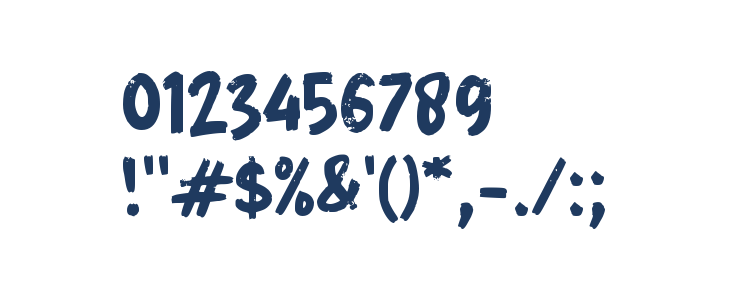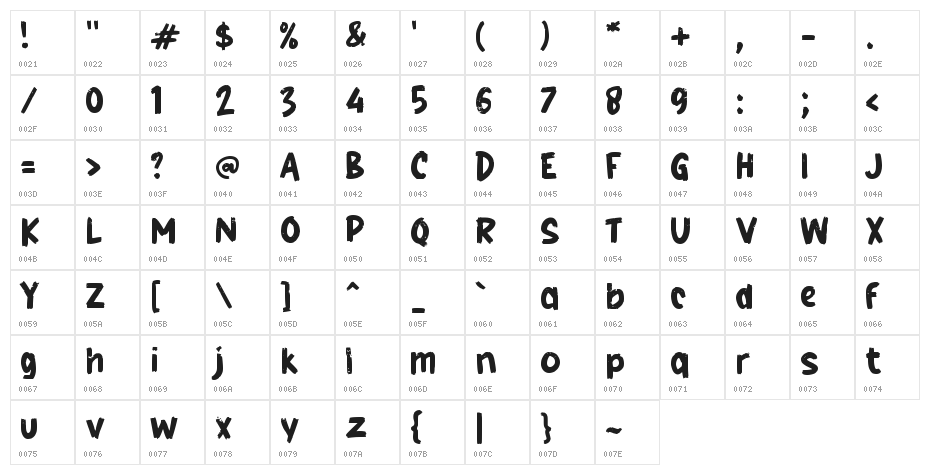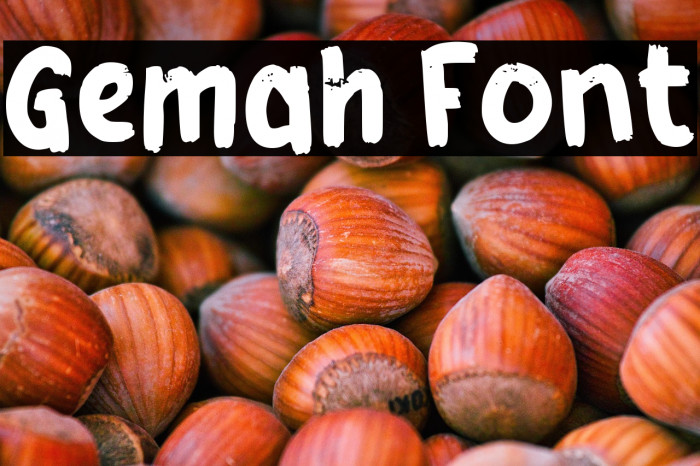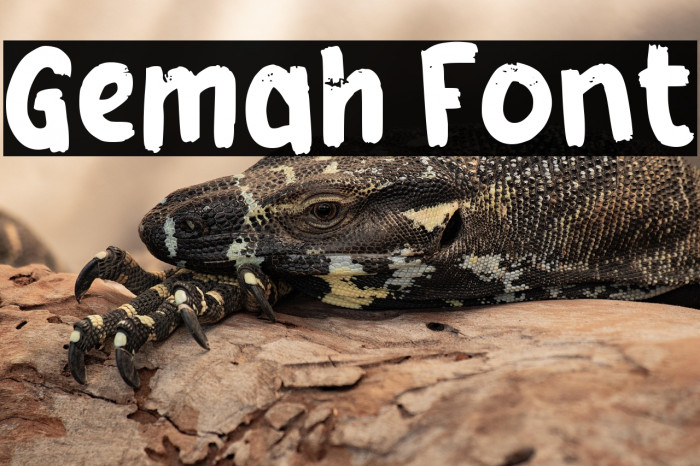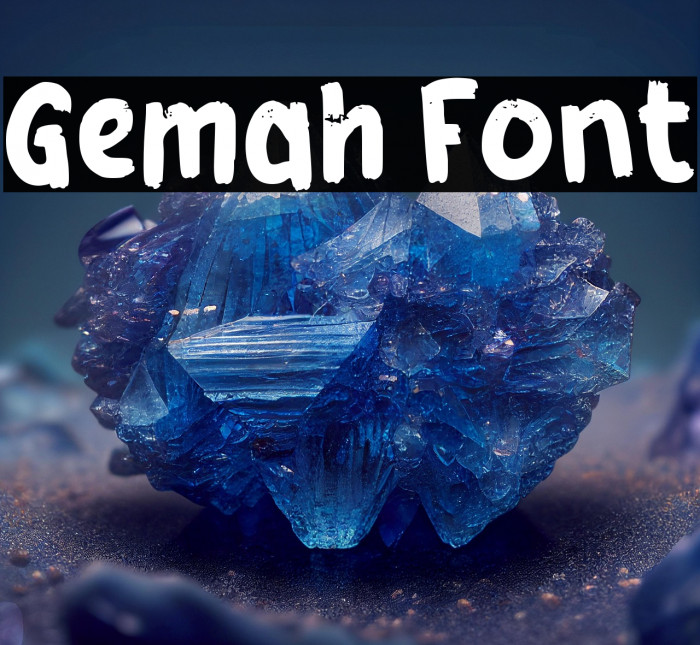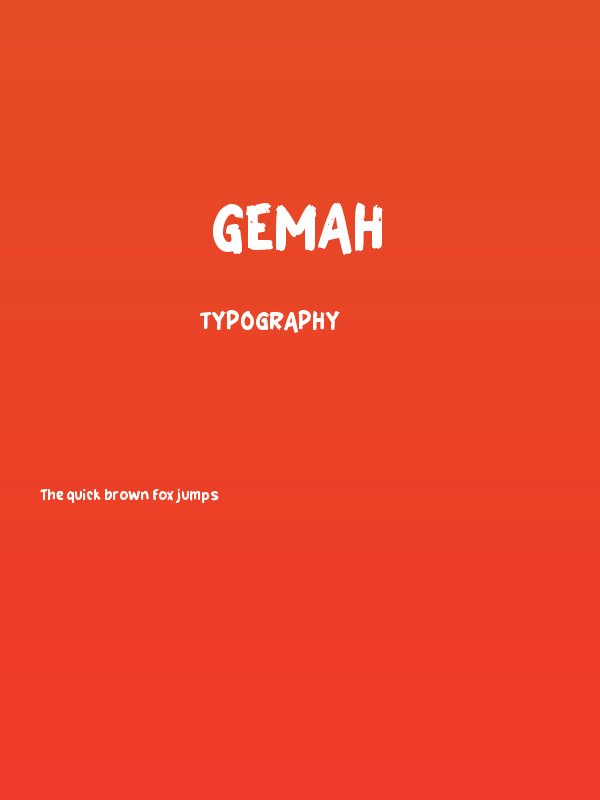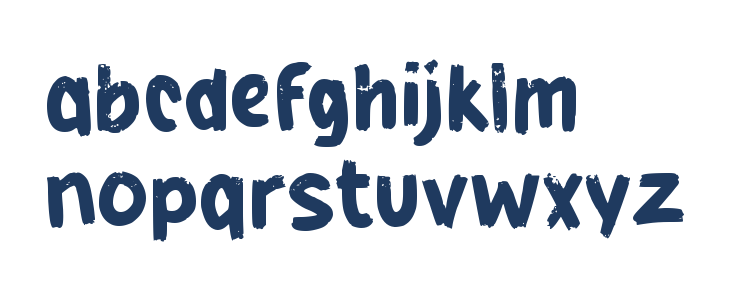
Gemah Font
Gemah Description
This font features a bold and rugged style with a hand-painted appearance. The characters have a distressed texture, giving them a rough, organic feel. The uppercase and lowercase letters maintain a consistent thickness, which adds to the boldness of the font. The numbers and special characters follow the same design, ensuring a cohesive look across all elements. The font's unique texture and bold presence make it stand out, ideal for projects that require a strong visual impact. Its hand-crafted look suggests a sense of authenticity and creativity.
| Proposed Projects | Ideal for posters, branding, packaging, and any project needing a bold, artistic touch. |